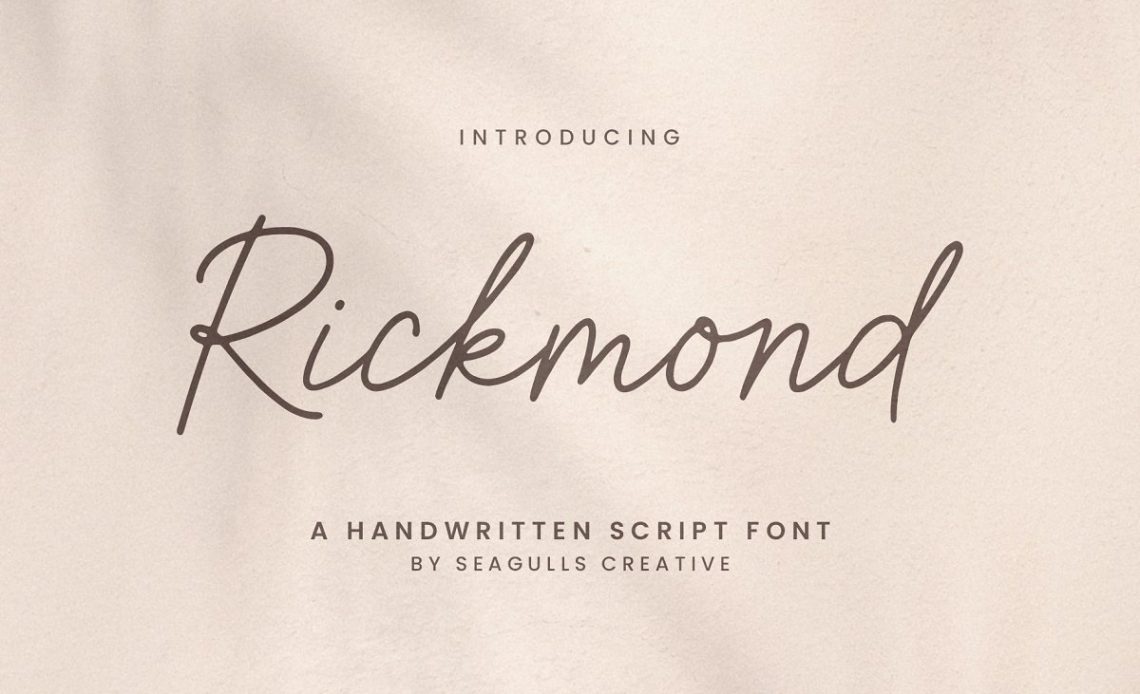
Looking for the best font for cursive handwriting that is modern and stylish? Look no further than Rickmond Handwritten Font, created by Seagulls Creative. This font is perfect for a wide range of projects, including branding, labels, invitations, photography, social media posts, product packaging, and more.
What makes Rickmond unique is its handwritten script style, which adds a personal touch to any design. It features letters, numbers, symbols, punctuation, and ligatures, making it a versatile font that can be used in many different ways.
But what really sets Rickmond apart is the emotional connection it creates with users. Its stylish and modern design can make any project stand out, and its personal touch adds a sense of warmth and authenticity to your message.